Diacritic
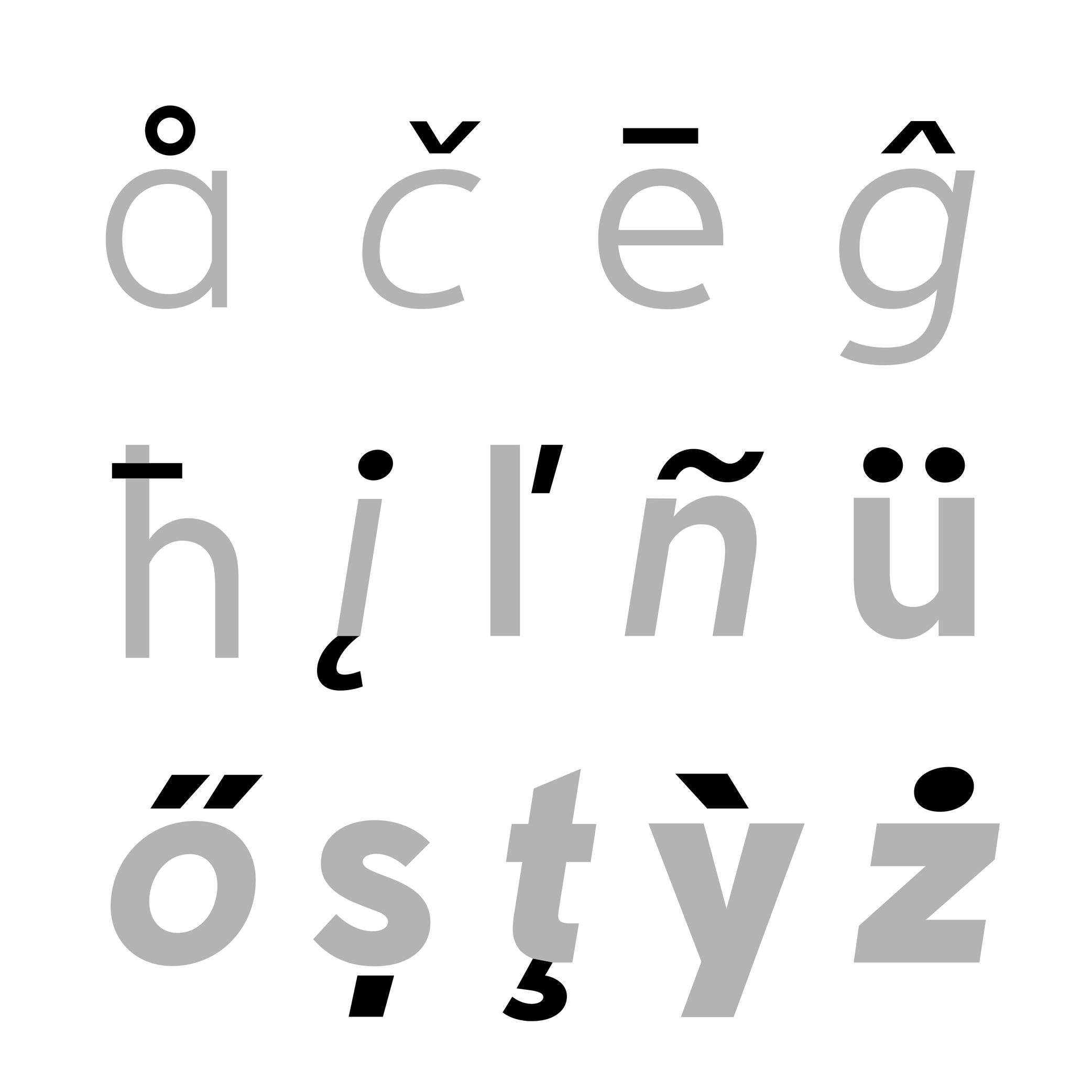
Diacritics are marks added to letters. They can be above, below, or attached to a letter. In most languages and scripts using diacritics, these bring to the letter a different sound than that of the letter by itself.
LATIN SCRIPT
The Latin script is used in a large number of languages. Most of them use diacritics to bring (sometimes very subtle) variations of sound to letters. The quality of the sound of a diacritic can be different from one language to another. An example with the cedilla ç, used in French, Portuguese, and Turkish. Other languages even use multiple diacritics combined together within the same letter (like in Vietnamese with ở).
ARABIC SCRIPT
In the Arabic script, letters have different pronunciations depending on which diacritic is attached to them (or not there), and the language in use.
CHINESE PINYIN
In Mainland China during the 1950s, a new phonetic transcription system was created to make Chinese learning easier: Pinyin, which borrows Latin alphabet letters combined with diacritics as tone markers.
DESIGN
When creating a typeface, diacritics are designed as individual glyphs and are then combined with letters as components in type design applications. They need to be:
- visually aligned to the same height with one another (for those placed in the same area);
- have consistent weight and color;
- placed in a position with the letter that feels “natural” for each language.